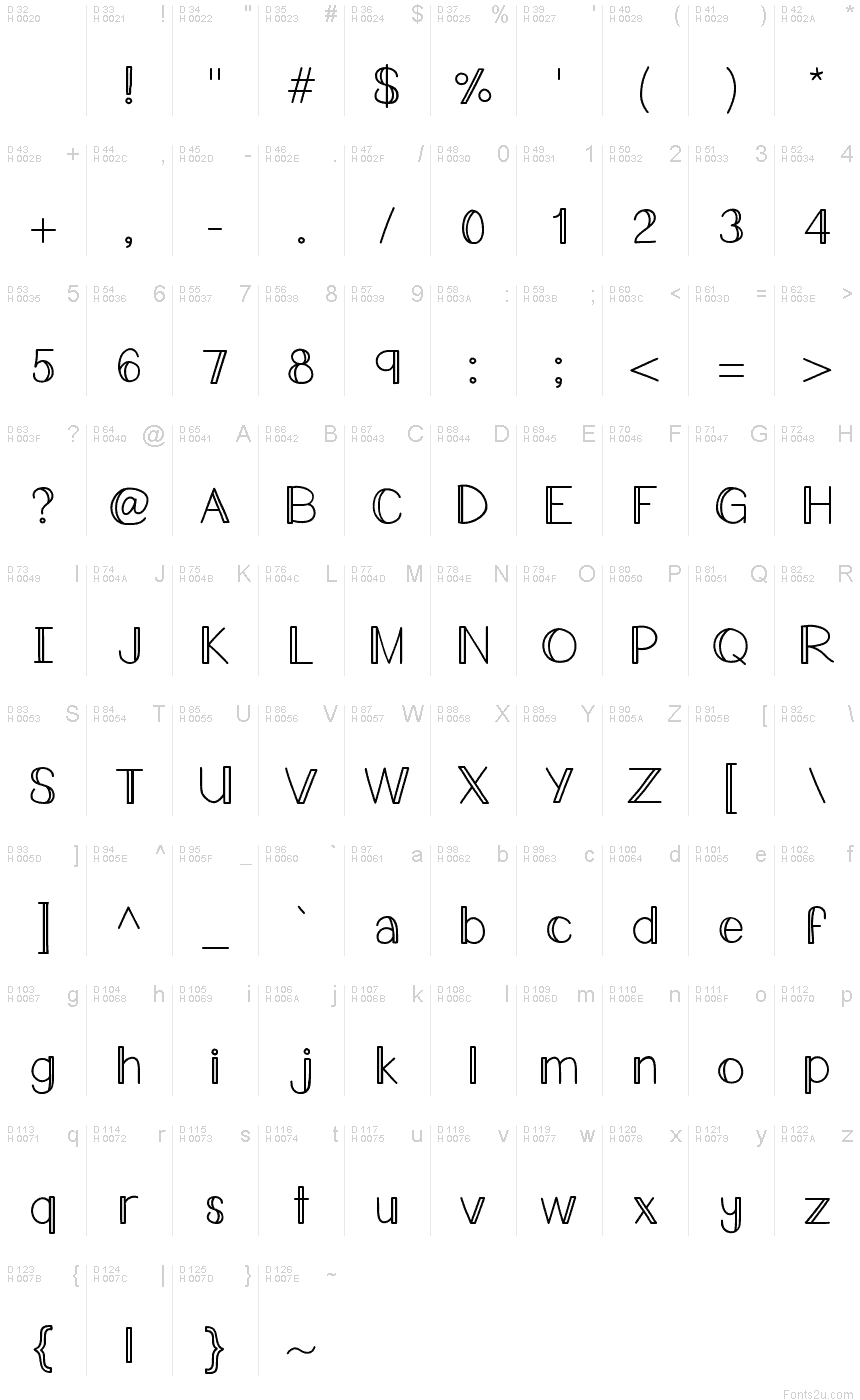
ALLined
ALLined by Alyssa Leanne is a free outlined display font with tall, airy letters and a loose geometric build. Rounded forms sit beside sharply pinched joins, and the doubled contours give many characters a lively, slightly offbeat profile.
Fashion branding and children's event graphics draw on different audiences, yet both suit its light, elongated shapes. It also fits album covers and playful packaging, especially when the lettering is meant to feel decorative rather than formal. The recurring inner lines can echo borders, ribbons, or simple line illustrations across those projects.